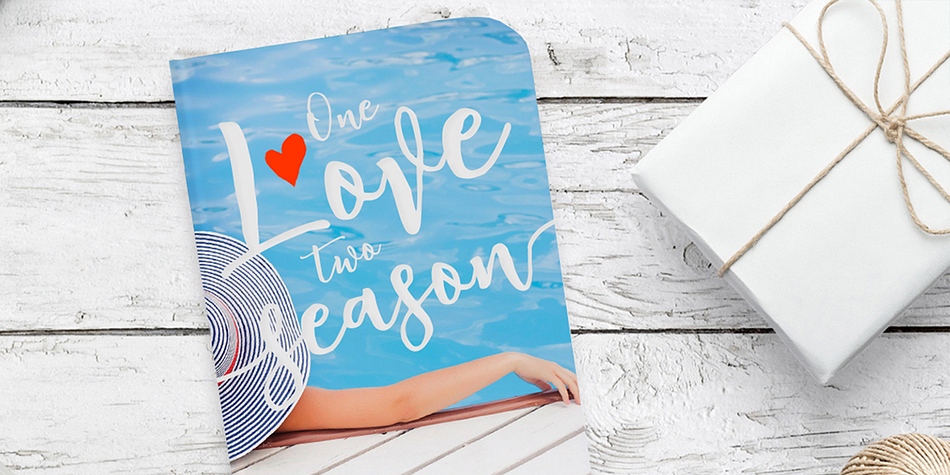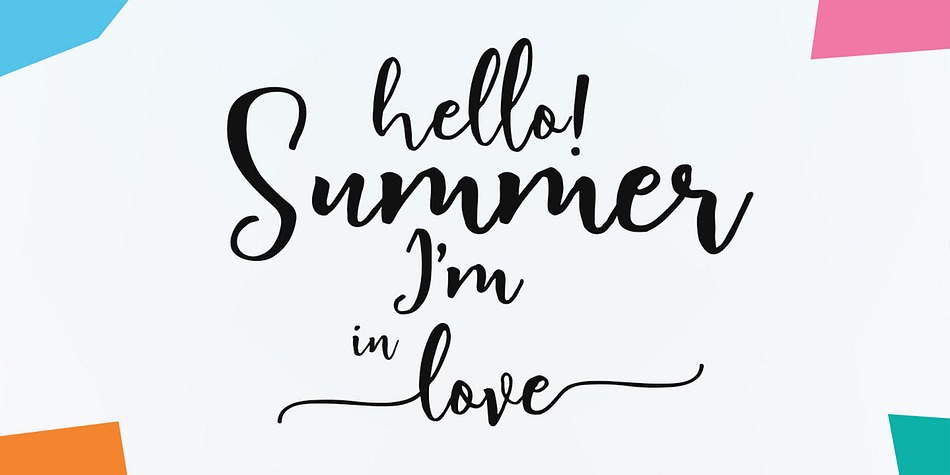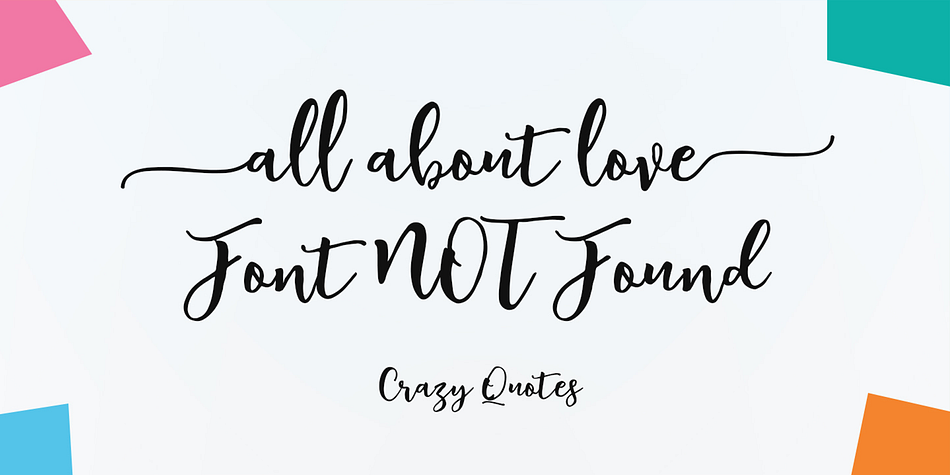
Designed by Rachma BT, Artlove is a modern calligraphy and script font published by Bonjour Type.
ArtLove is a lovely font for every art lover. Try ArtLove for book covers, stationery, marketing, magazines, films, wedding card designs, logotype, website headers, fashion designs and much more.